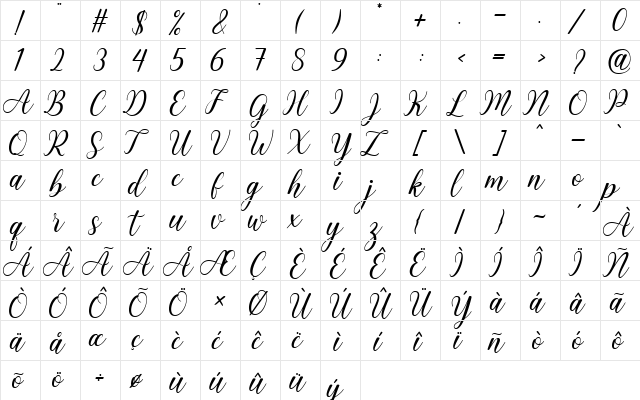
subyan Regular
| Foundry | Suby Studio |
| Designer | Teguh Subiyantoro |
Design Context for subyan Typeface
subyan is a composed and adaptable typeface that performs quietly and consistently across a wide range of design contexts.